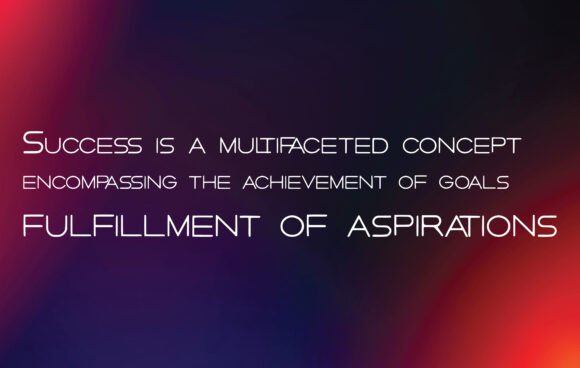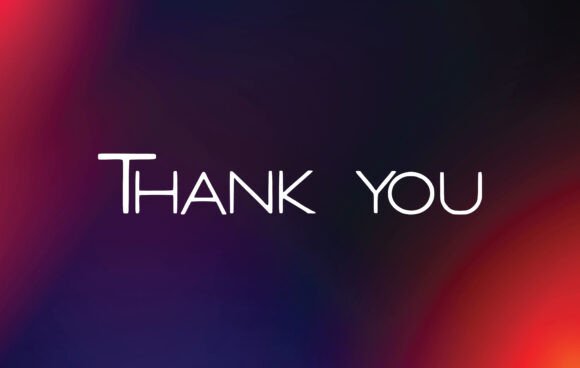
The Birth of a Creative Favorite: Introducing Cora Font
Have you ever been brainstorming a new design project and suddenly a burst of inspiration hits you? You see a vision of vibrant colors, catchy typography, and a message that resonates with your audience. That’s exactly what happens when you fall in love with a font that speaks to your creative soul.
Cora Font is that perfect companion for your design journey. This versatile and eye-catching font is designed to bring your ideas to life, making it a go-to favorite for designers of all levels. With its clear and easy-to-read style, Cora Font is perfect for titles and body text alike, ensuring that your message shines through in any medium, from magazine covers to social media posts.
As a valuable addition to any designer’s toolkit, Cora Font is the perfect choice for creating memorable branding, wedding invitations, greeting cards, and more. Whether you’re a seasoned pro or just starting out, Cora Font is sure to become your new favorite font.
Cora Font Key Features
- Font Family: Cora Font is a sans-serif font family designed for digital use.
- Unique Characteristics: Cora Font features a clean, modern design with a high x-height, making it suitable for body text and headlines.
- Font Size: Available in multiple weights, ranging from Thin (100) to Extra Bold (800).
Cora Font Review
Initially, I was drawn to the Cora Font for its elegant and modern feel. ✨ The rounded edges and subtle curves give it a soft, approachable look that would work well in a variety of design applications. I particularly appreciate the clean lines and minimalist aesthetic, which make it a great choice for digital products and editorial content.
Another advantage of the Cora Font is its excellent legibility. ✨ It’s easy to read, even at small font sizes, and the spacing between characters and lines is well-balanced. This makes it a great choice for body text, headings, and even captions.
- ⚠️ Limited character set: While the font is available in several weights and styles, the character set is somewhat limited. This might be a concern for designers working on projects that require a wide range of special characters or languages.
- ⚠️ Not ideal for display text: While the Cora Font is great for body text and smaller headings, it’s not the best choice for large display text or titles. The font can become difficult to read at larger sizes.
Overall, I think the Cora Font is a solid choice for designers looking for a clean, modern sans-serif font. While it has some limitations, its excellent legibility and versatility make it a great addition to any design project.
Tips for Getting the Most Out of Cora Font
Use Cora font in combination with other fonts to add depth and variety to your designs.
Play with color and background textures to enhance the font’s readability and aesthetic appeal.
Cora font is ideal for:
Designing feminine and elegant branding materials.
Creating modern and minimalist typography.
Adding a touch of sophistication to digital products and services.
Alternatives to Cora Font for Designers
Raleway
Raleway is a modern sans-serif font designed by Matt McInerney. It is suitable for a wide range of applications, including headlines, body text, and even digital interfaces. Raleway is more geometric and clean compared to Cora Font, making it ideal for modern and minimalist designs.
Montserrat is a sans-serif font designed by Julieta Ulanovsky. It is inspired by the urban landscape of Montserrat, Argentina, and is perfect for headlines, titles, and other display typography. Montserrat is more condensed and edgy compared to Cora Font, making it suitable for bold and urban designs.
Lato is a modern sans-serif font designed by Łukasz Dziedzic. It is highly legible and suitable for body text, headlines, and digital interfaces. Lato is more rounded and friendly compared to Cora Font, making it ideal for designs that require a warm and approachable tone.
Open Sans is a clean and modern sans-serif font designed by Steve Matteson. It is highly legible and suitable for body text, headlines, and digital interfaces. Open Sans is more neutral and versatile compared to Cora Font, making it a great choice for a wide range of designs, from corporate to creative projects.
Cora Font is a highly customizable font, allowing designers to access a wide range of OpenType features and stylistic sets. This includes ligatures, swashes, and other advanced typographic features that can be easily accessed using design software that supports OpenType, such as Adobe Creative Cloud.